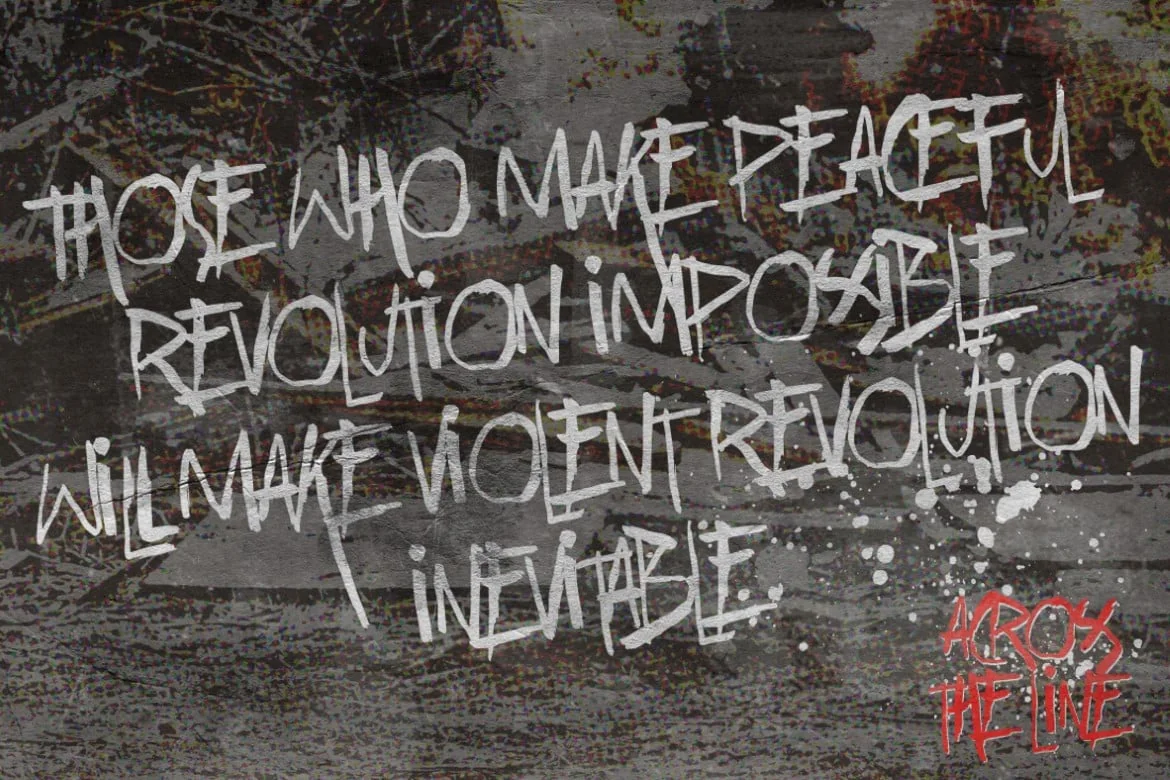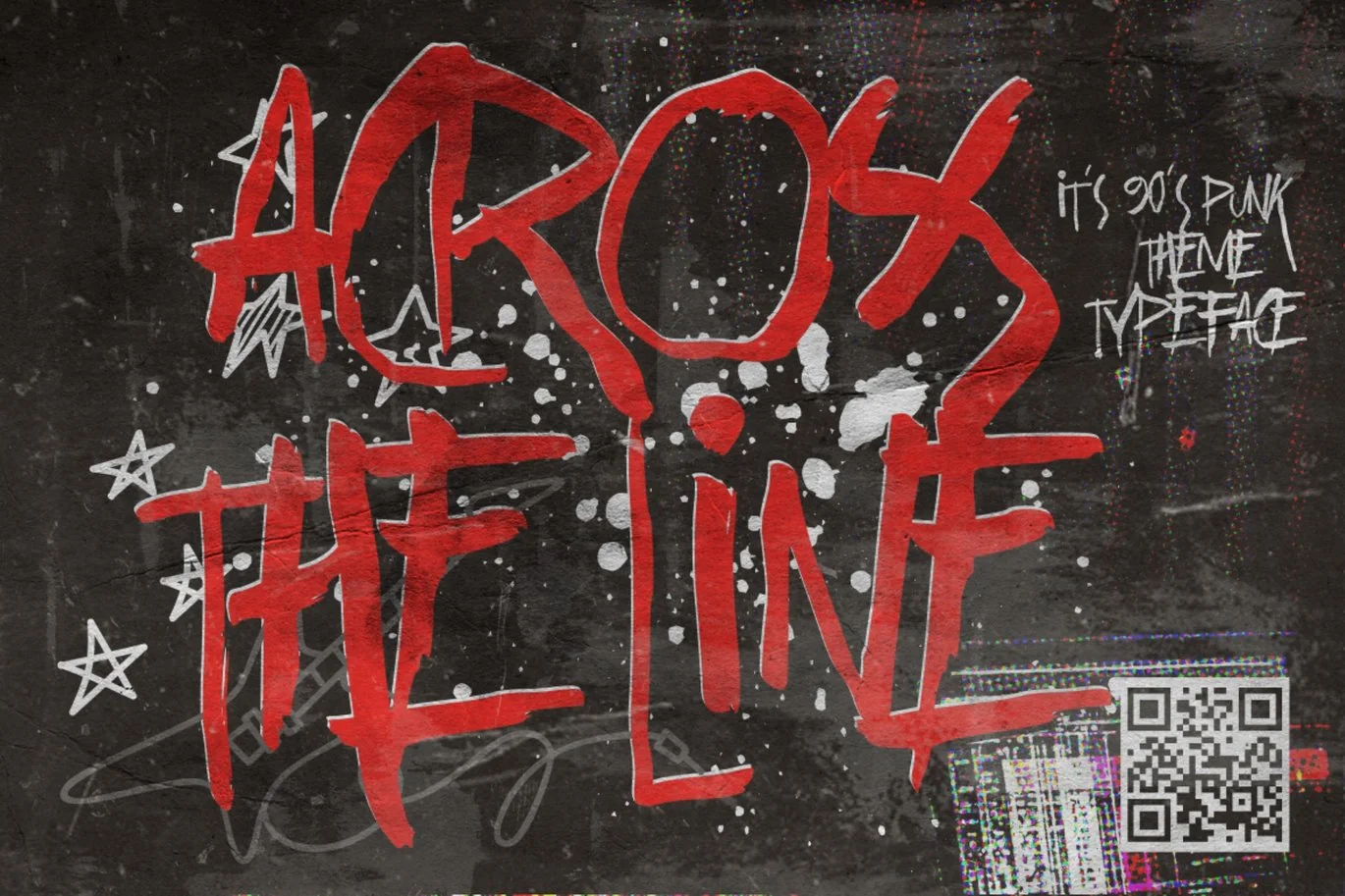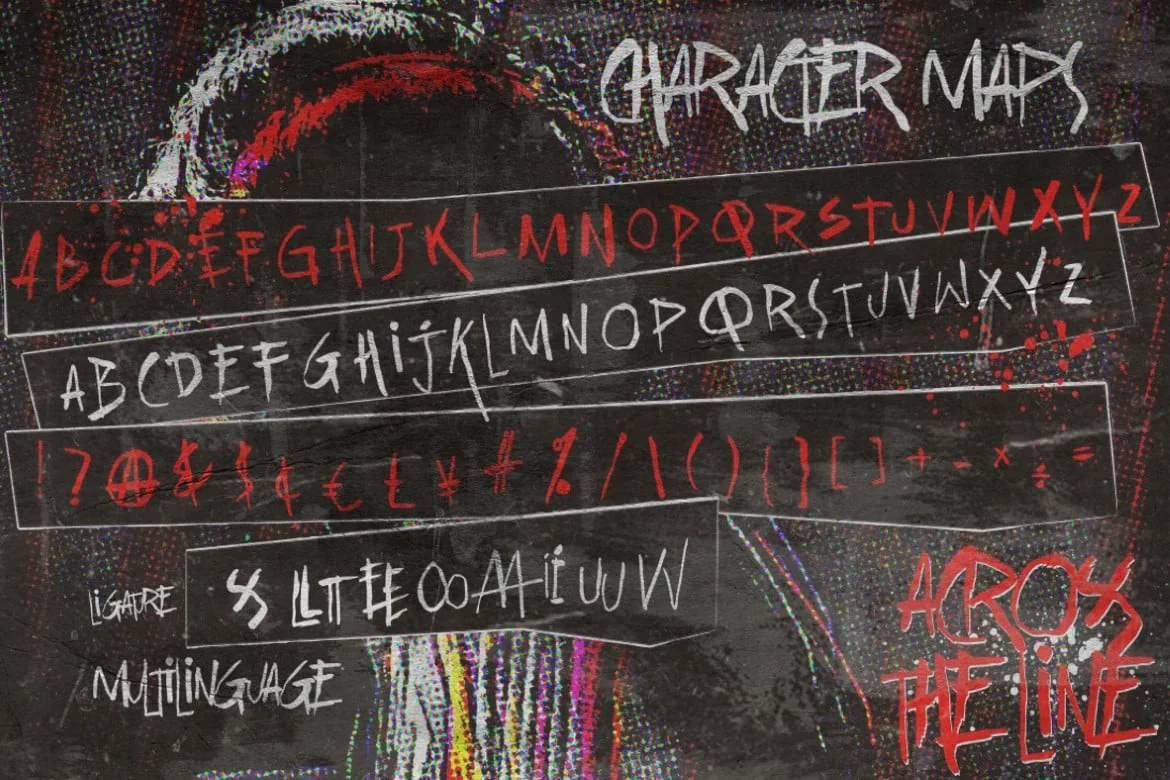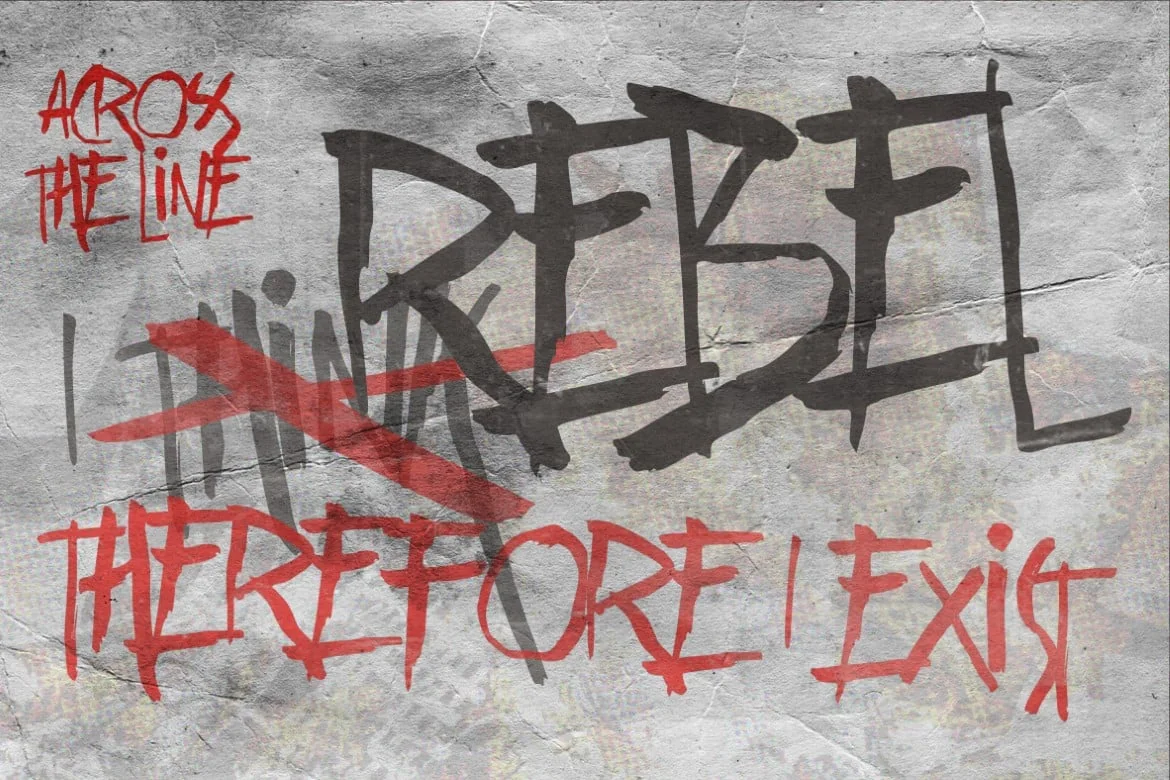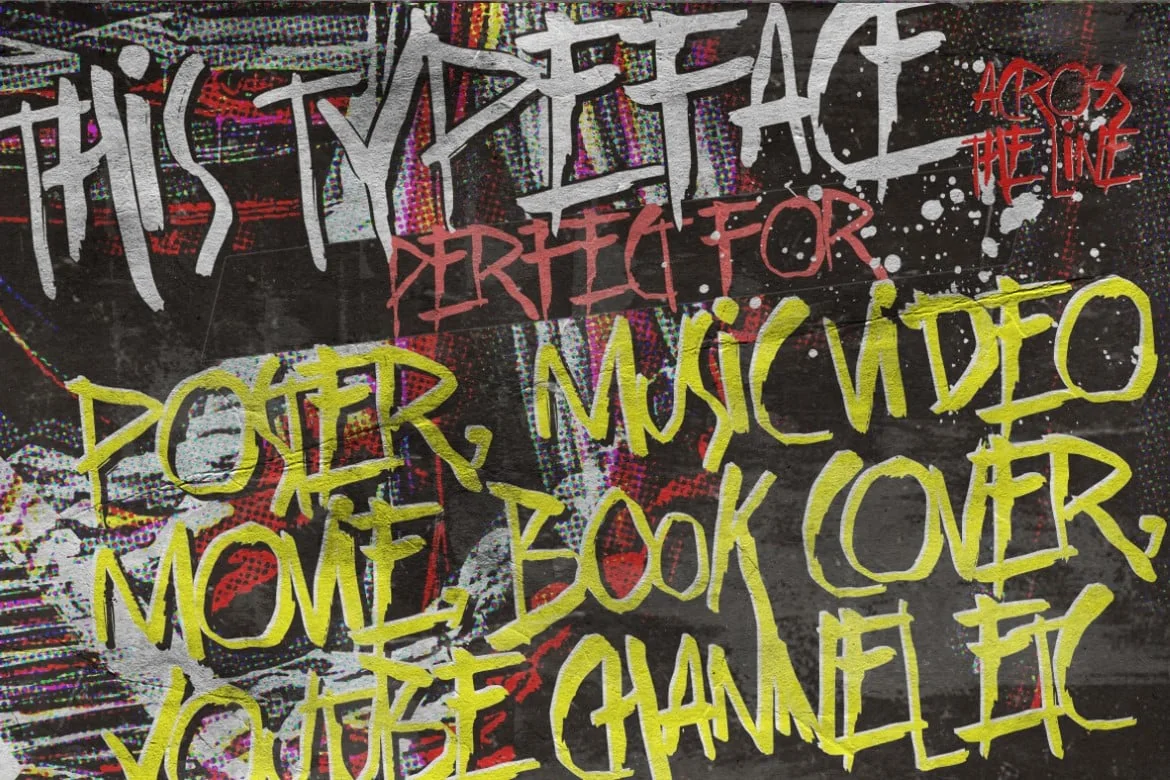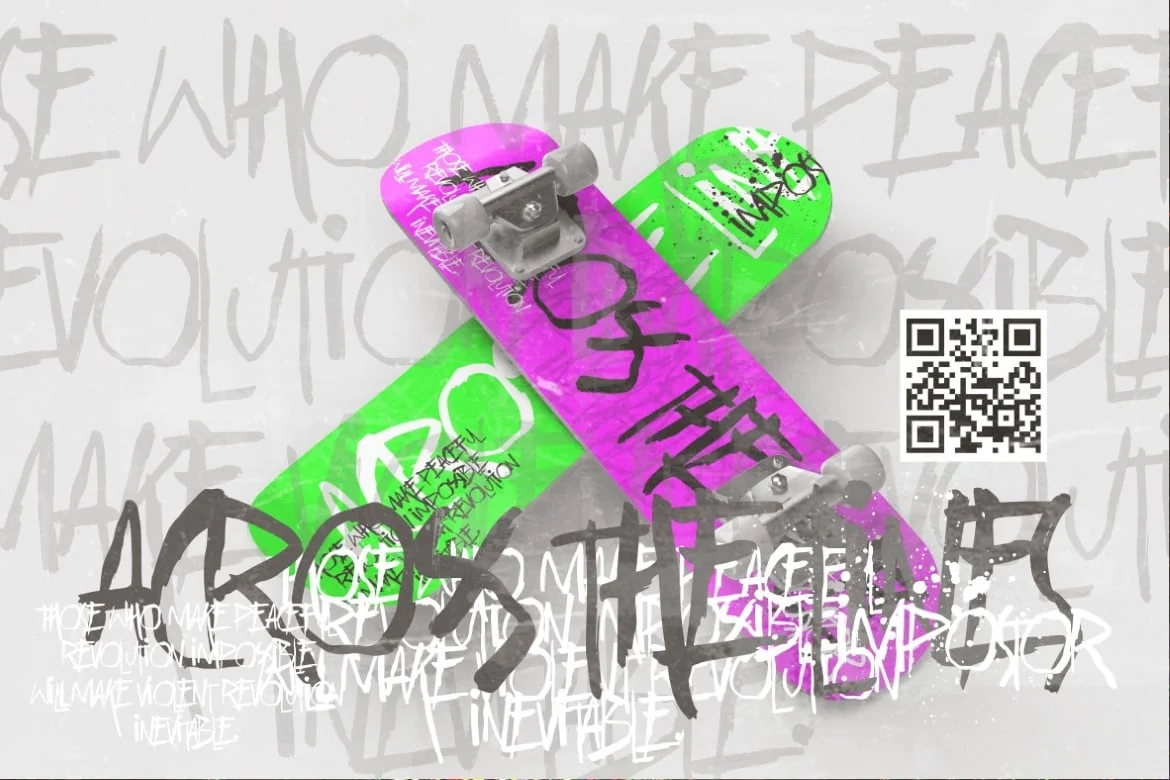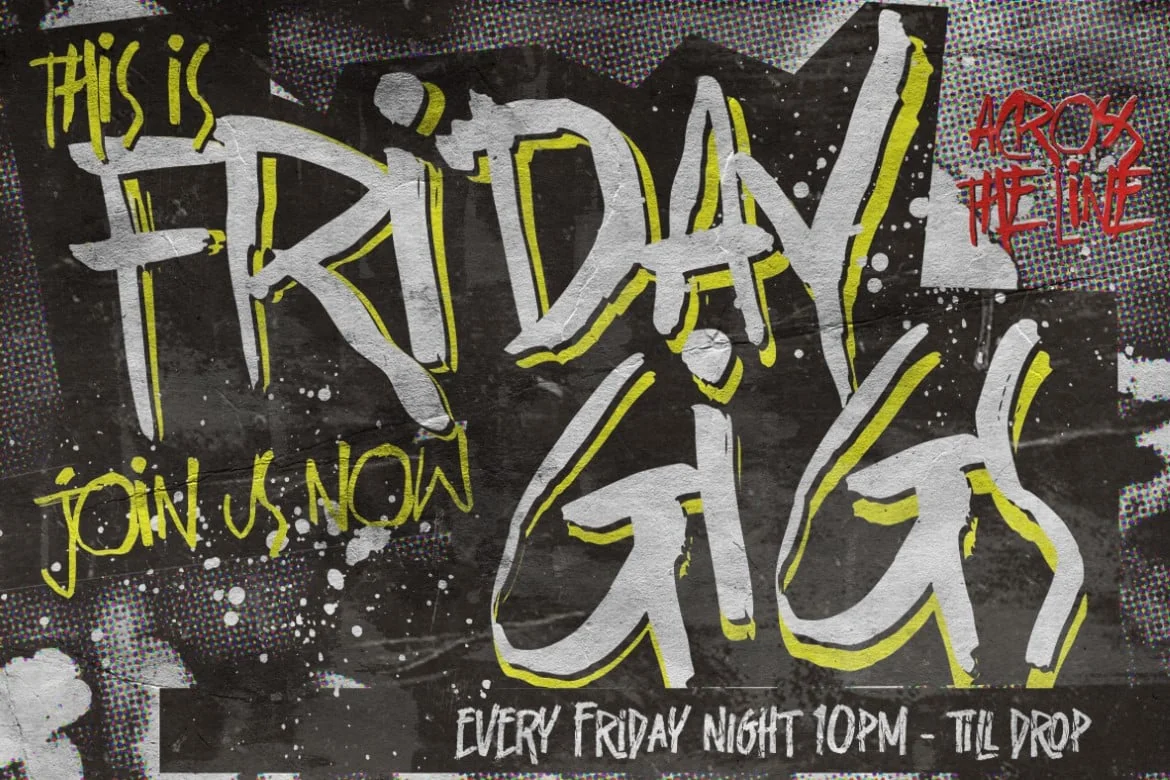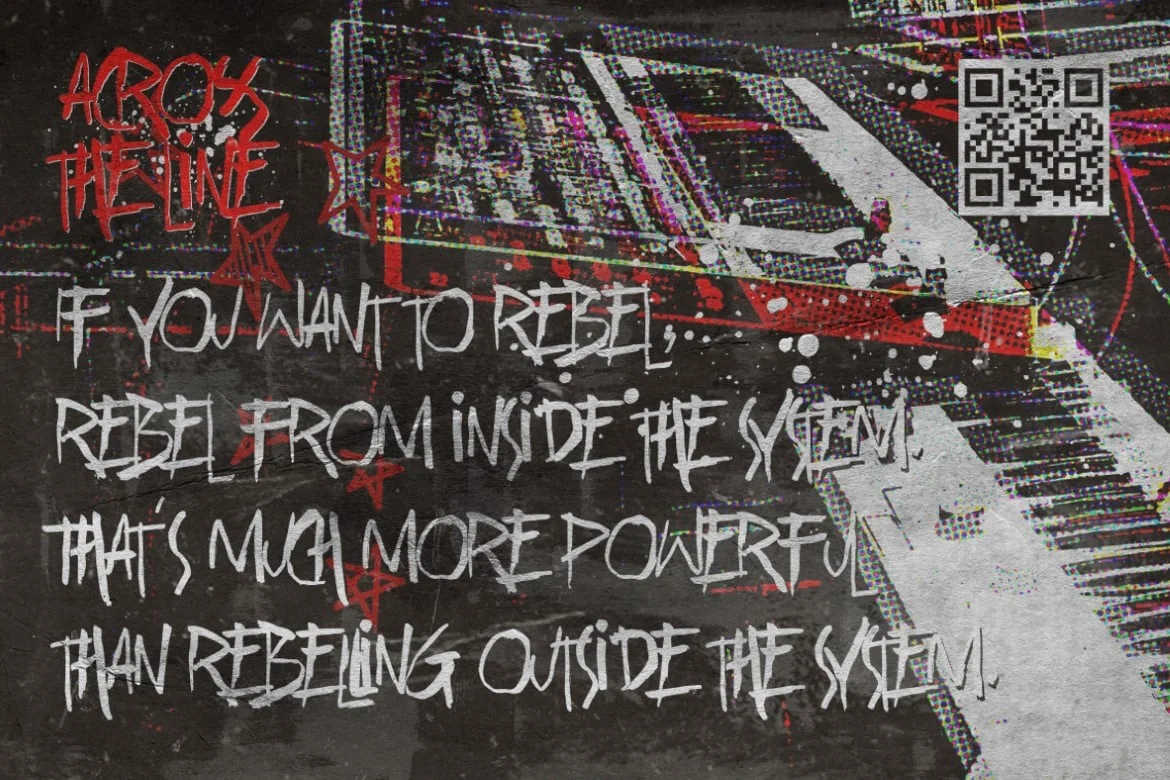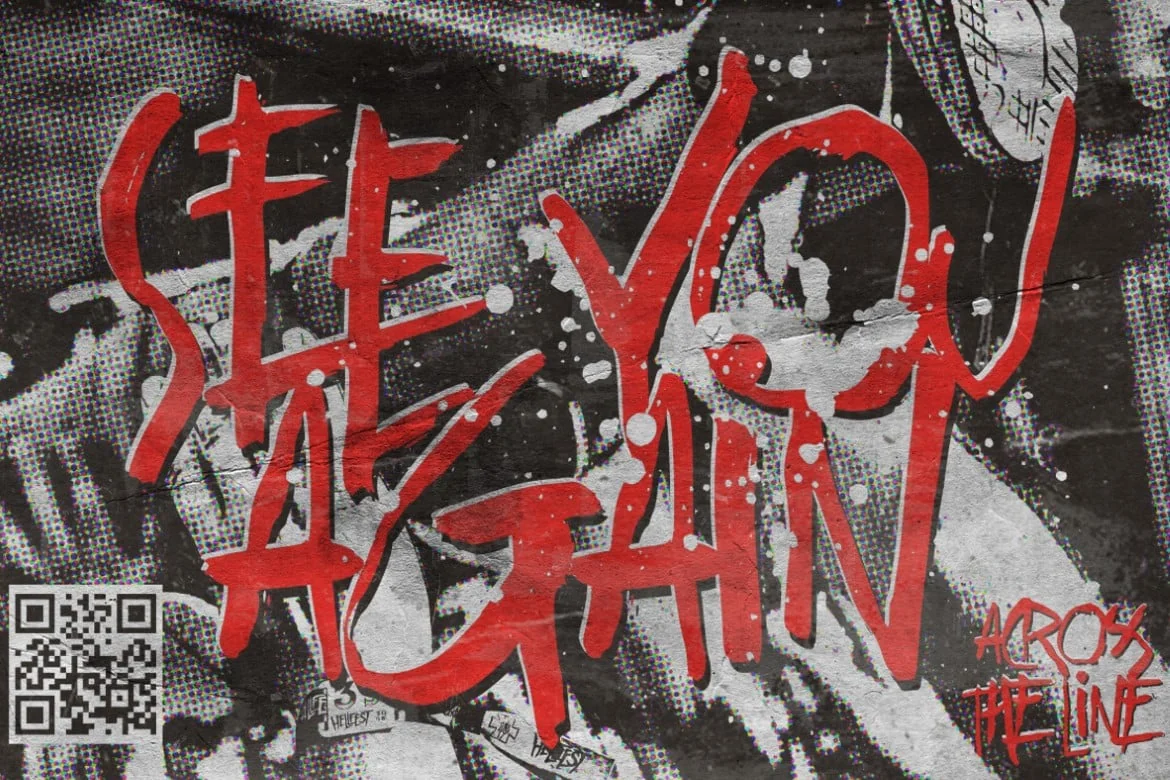
Across the Line – Trash and Rebel typeface
Introducing Across the Line, inspired from Punk Music and street culture, recreated for modern branding
You can use and enjoy this font for anything from promotional material and poster quotes, to product packaging, merchandise and branding projects
And this font perfect for logo, packaging, magazine, sport, poster, apparel, title, social media post, ad banner, book cover, poster quotes, greeting cards and advertising.